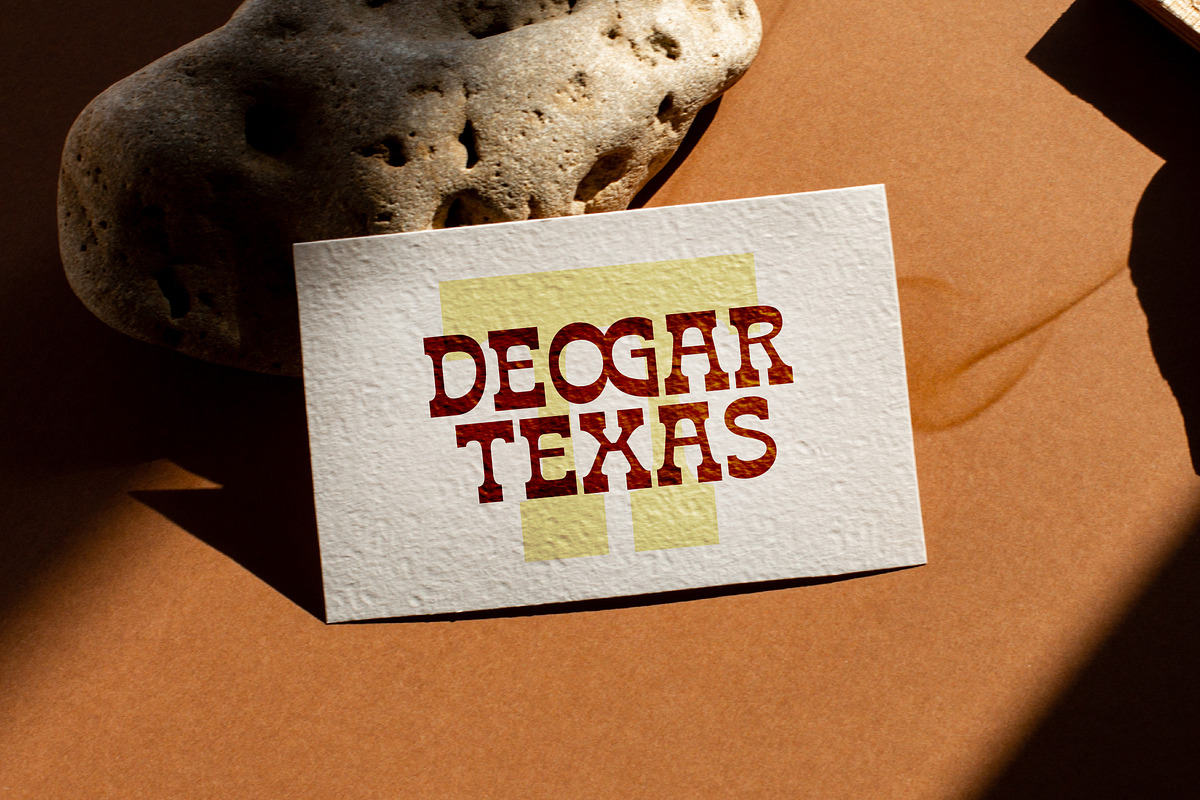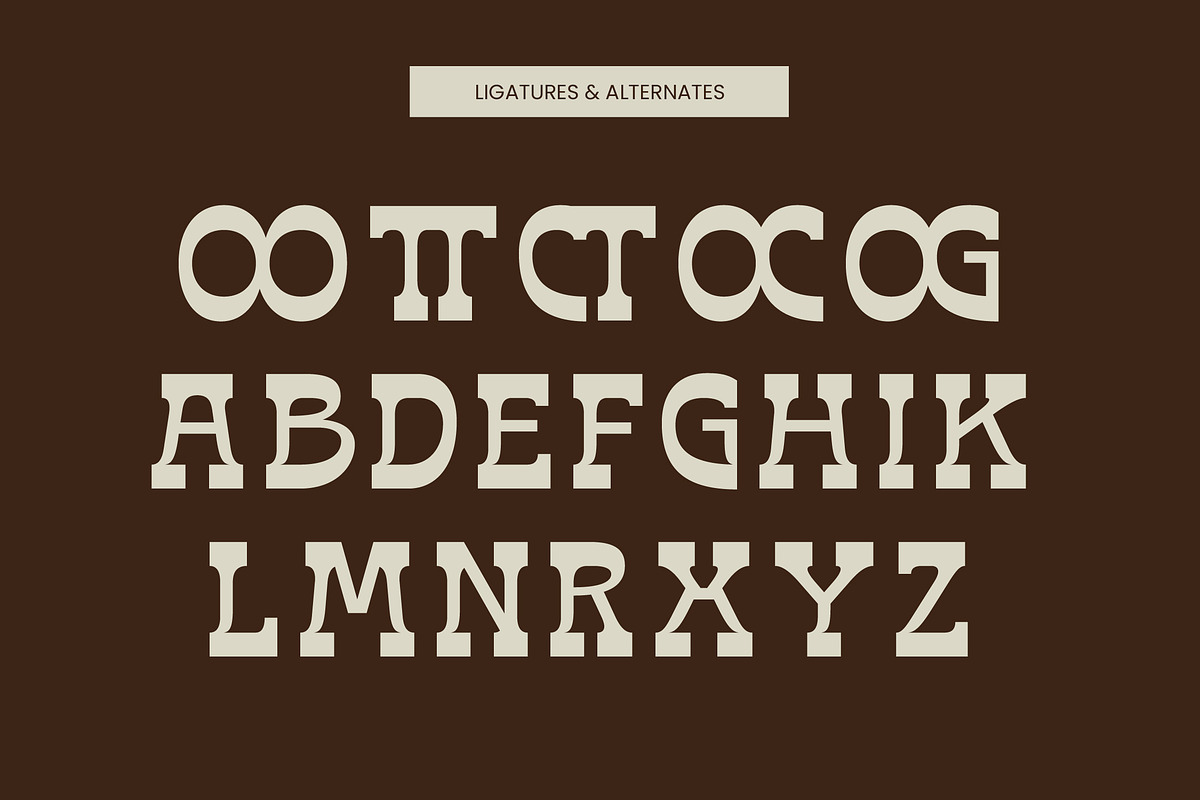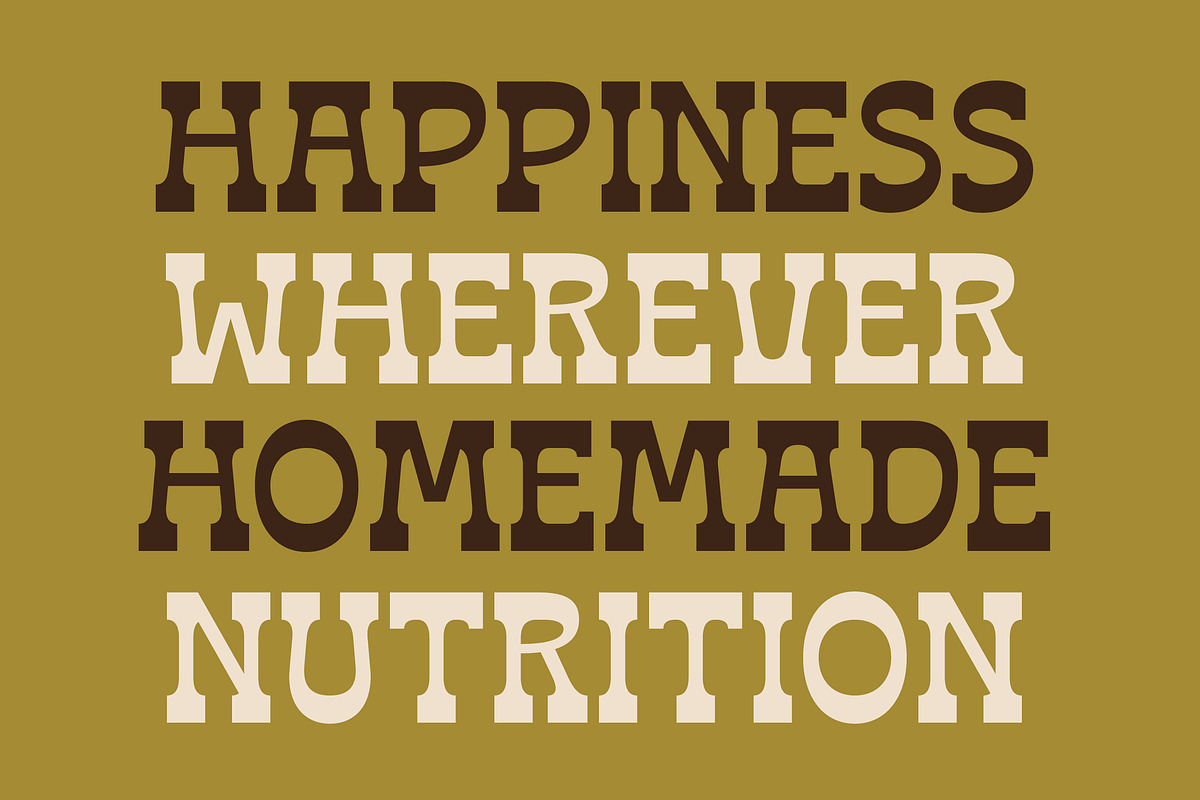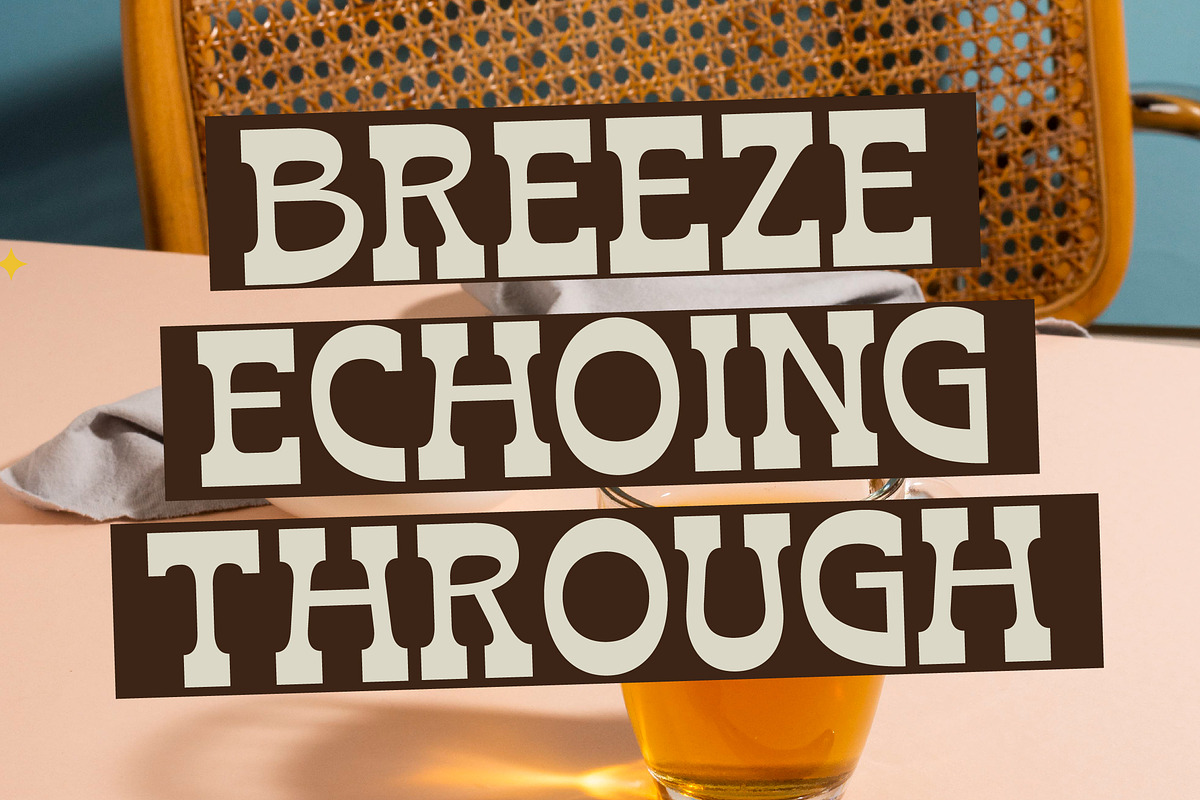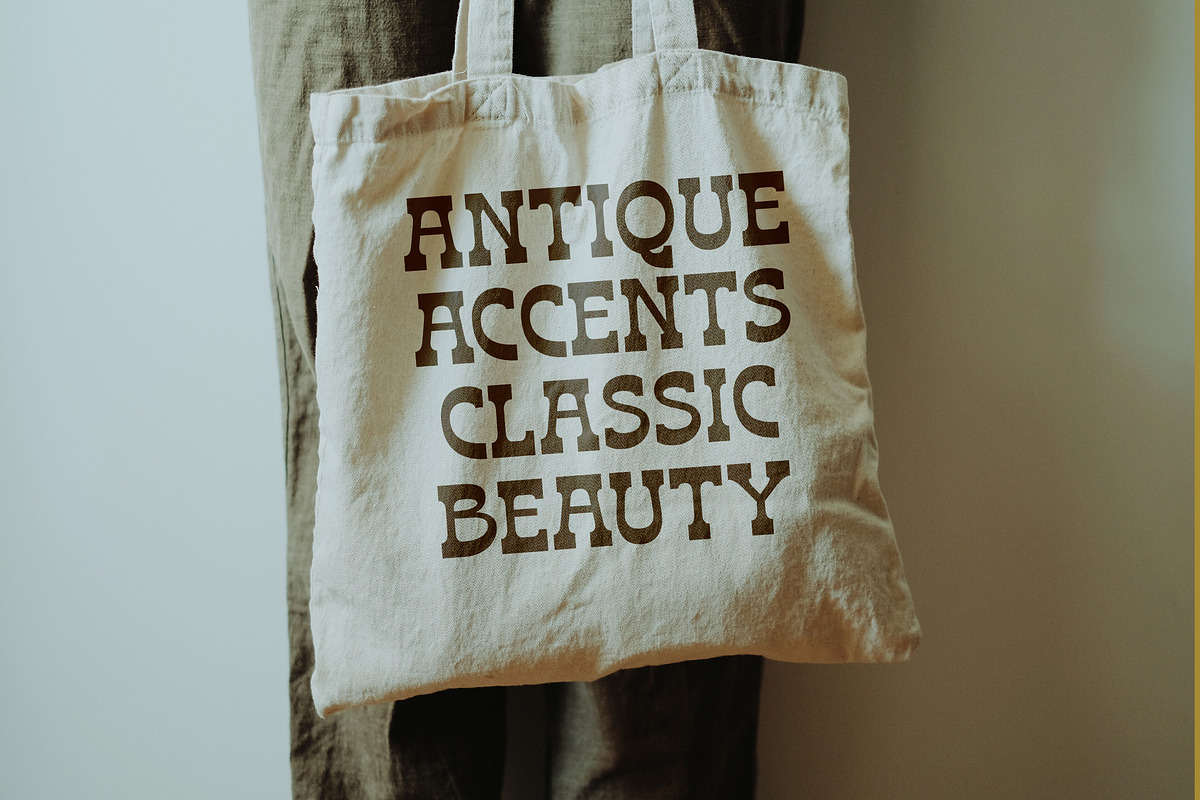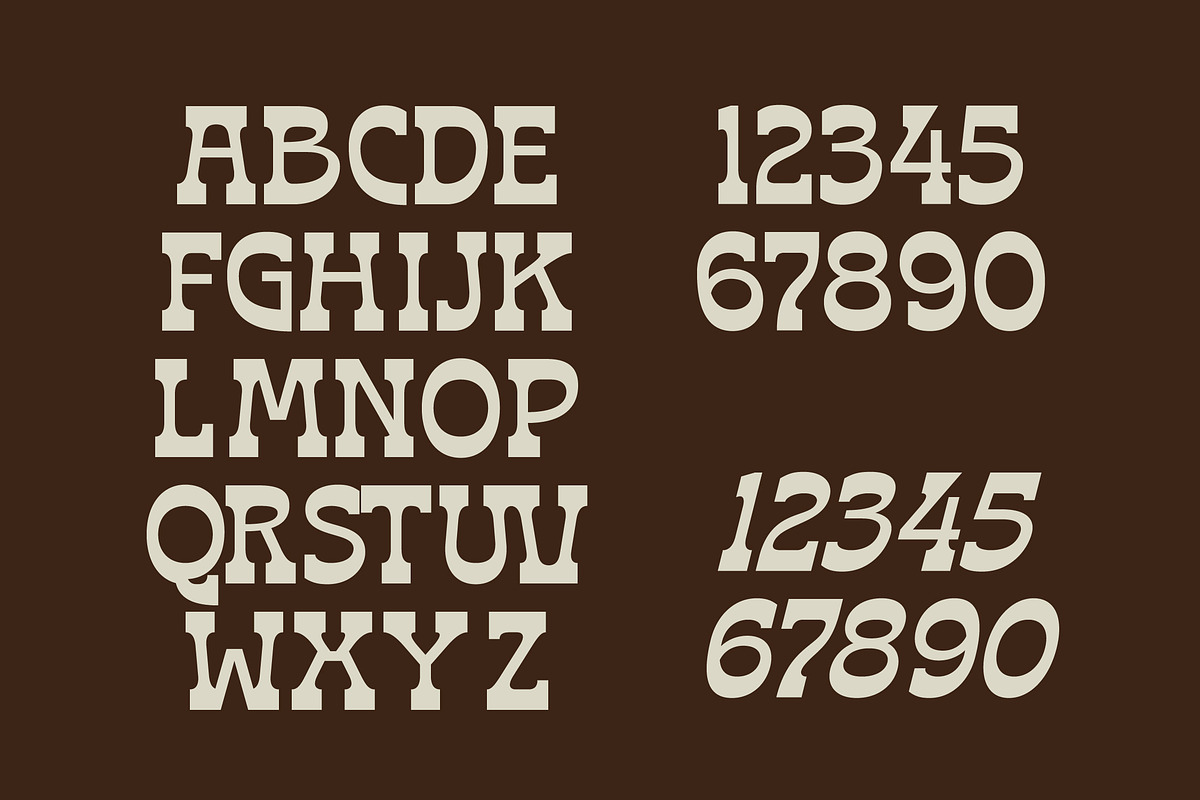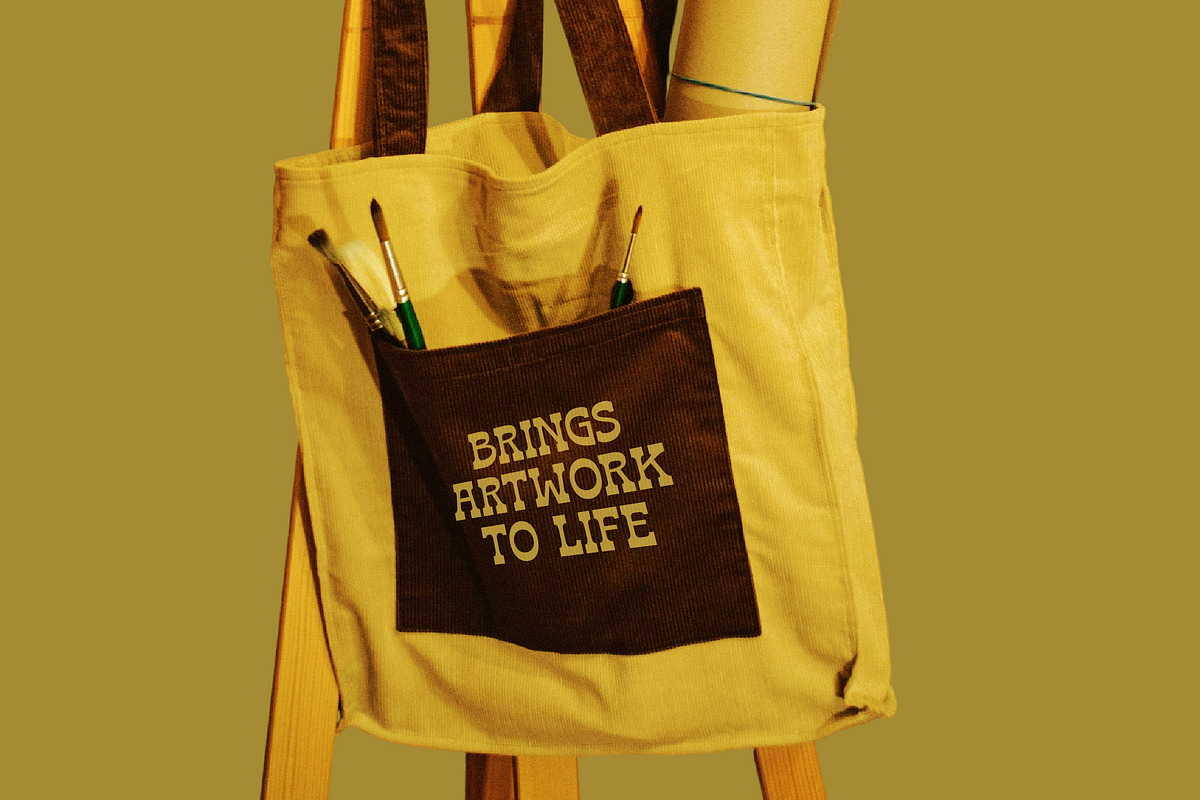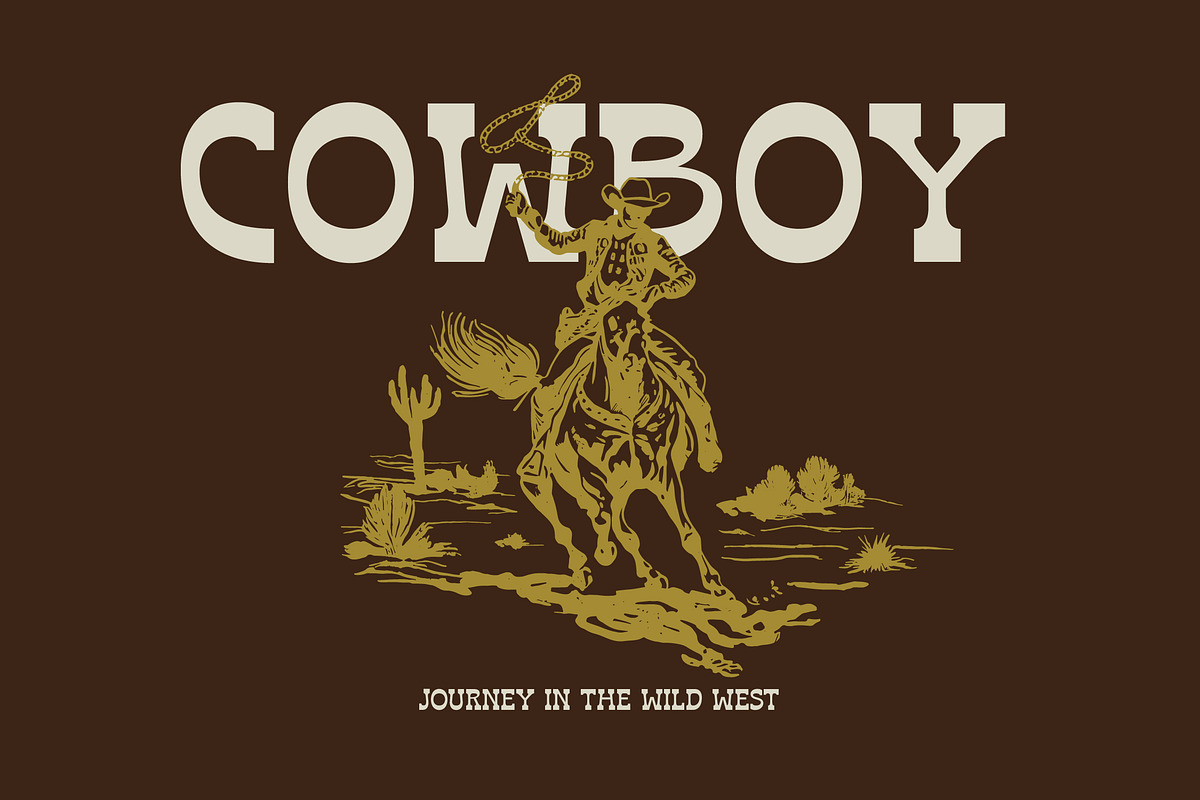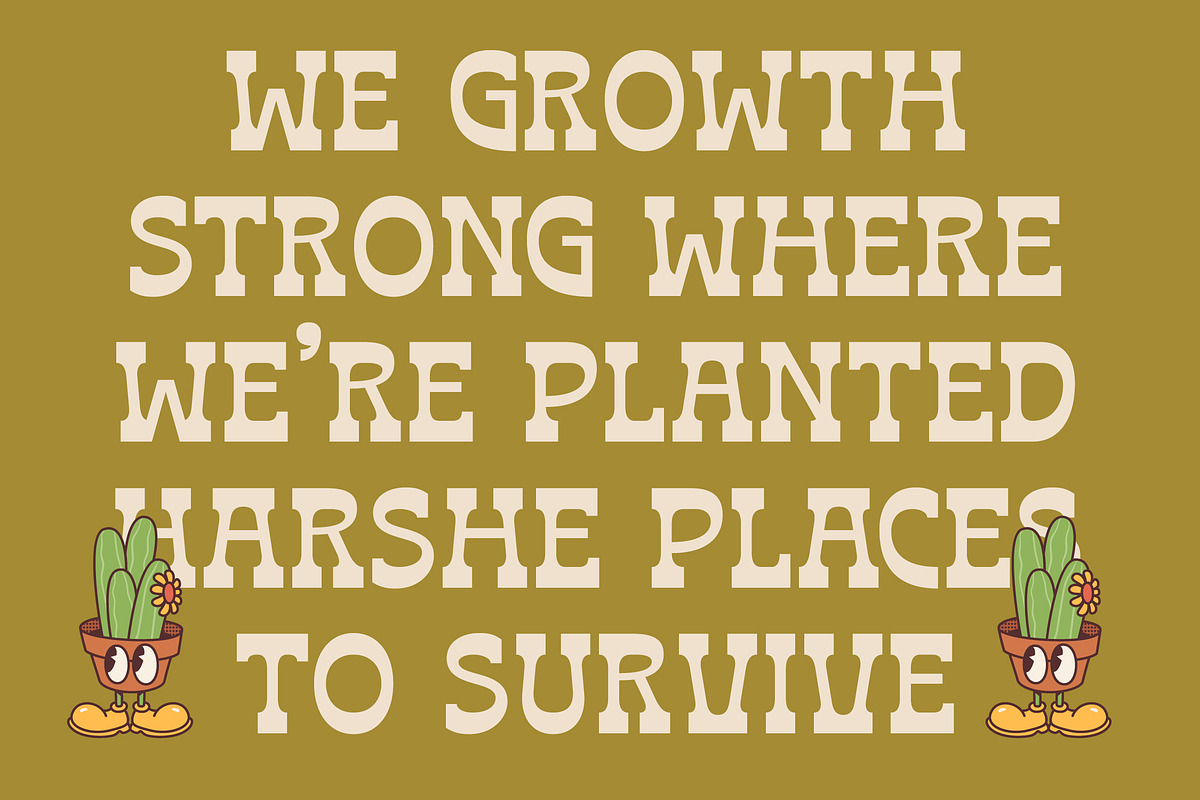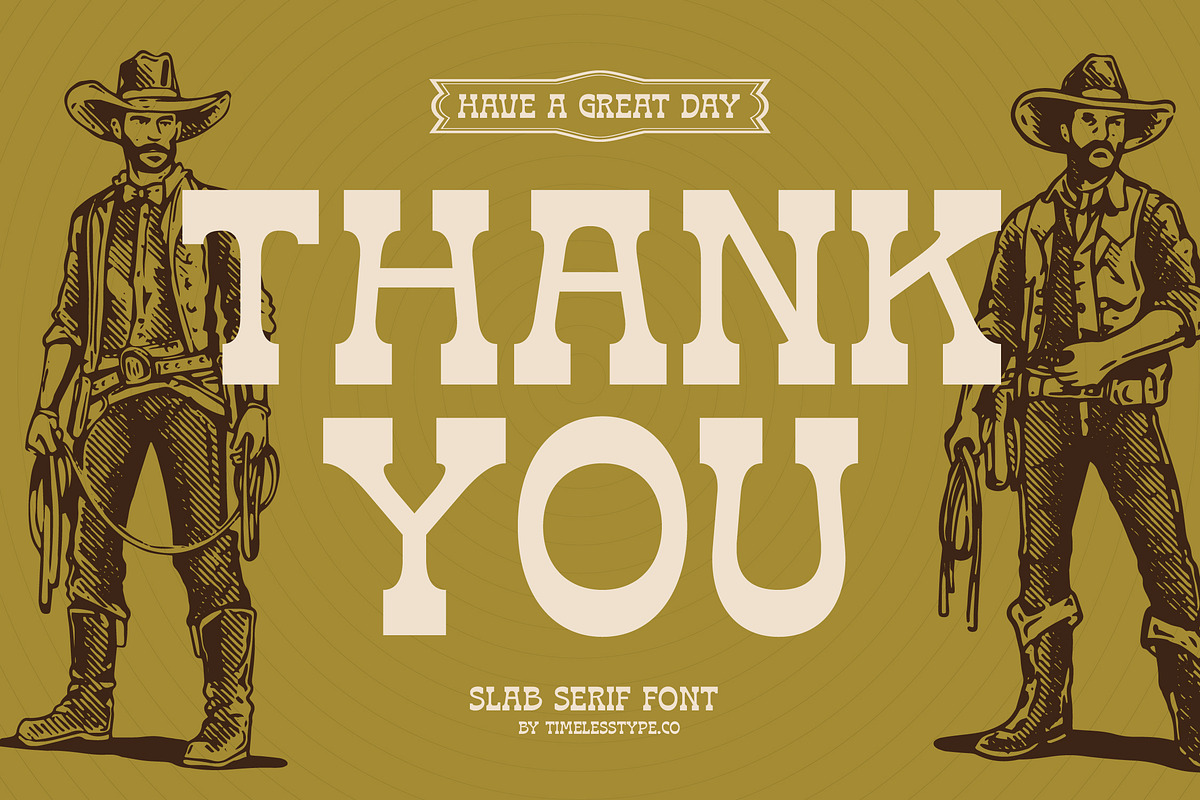
Bring Horse Western Slab Serif
Bring Horse is a bold testament to the rugged spirit of the frontier, capturing a timeless western aesthetic in a modern format. This slab serif is designed to command attention while maintaining a sense of heritage and authentic craftsmanship.
Inspired by vintage woodblock prints and classic wild west signage, the font draws from the era of dusty trails and bold saloon posters. Every character reflects the strength and grit of traditional frontier life, reimagined for contemporary design projects.
This typeface is more than just a modern serif display; it is a statement of power and reliability. With its heavy weights and unique decorative elements, it provides a luxury typography feel that works perfectly as a high-contrast serif for projects requiring a distinct editorial font with significant branding impact.
Aligning with the current modern serif trend, this font taps into the resurgence of vintage-inspired editorial display fonts. It satisfies the growing demand for character-driven typography that tells a story, making it a favorite for designers seeking a balance between old-world charm and current aesthetics.
From high-end logo design to cohesive branding systems, this font excels in creating a memorable visual identity. It is an ideal choice for editorial layouts, rustic packaging, unique wedding invitations, and bold fashion lookbooks that need a touch of heritage.
The package includes a comprehensive set of ligatures and alternates to provide creative flexibility in your layouts. Furthermore, it features full multilingual support and a wide range of international characters, ensuring your message reaches a global audience with consistent style.
- Ligature 05 Alternate 16